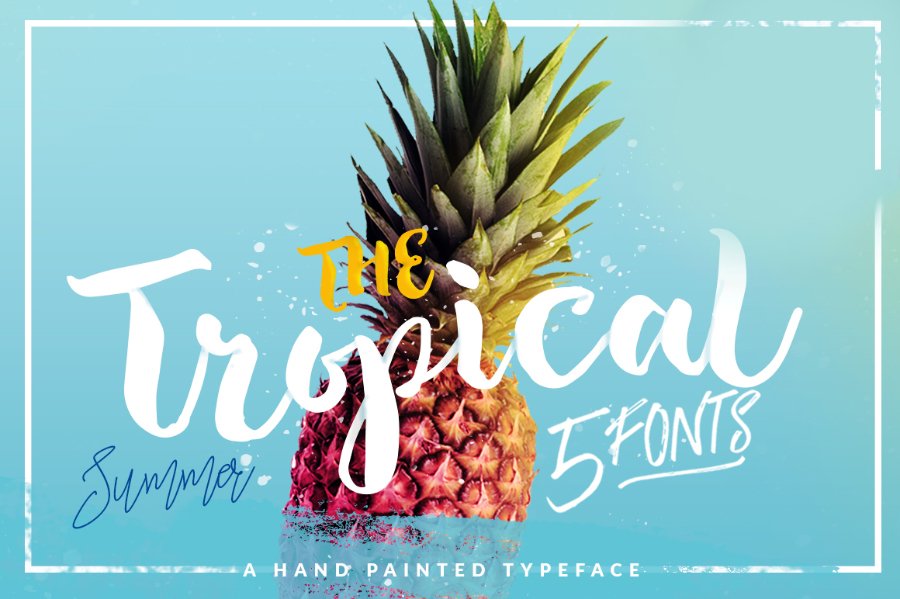
Tropical Brush Script Font
Tropical Brush Script Free Demo! A fontastic set of gorgeous tropical vibe fonts from Dirtyline Studio. Therefore they have it all carefully-paired and handcrafted these fonts. It designed to work together in harmony to create awesome hand-lettered typographic designs. Today we have one of these five tropical fonts for free! This font will be awesome for designing book covers, film covers, apparel, cards, logos, posters, etc.
Tropical Brush Script Free Demo